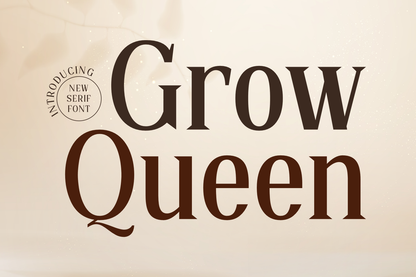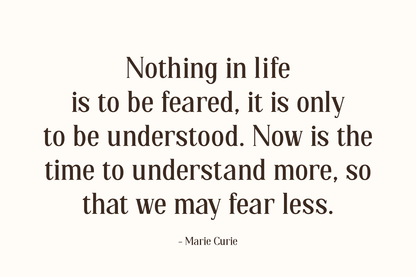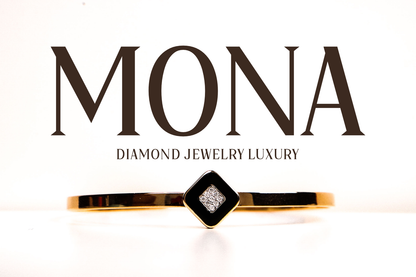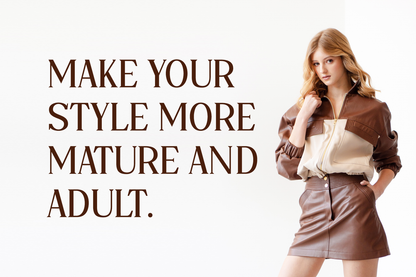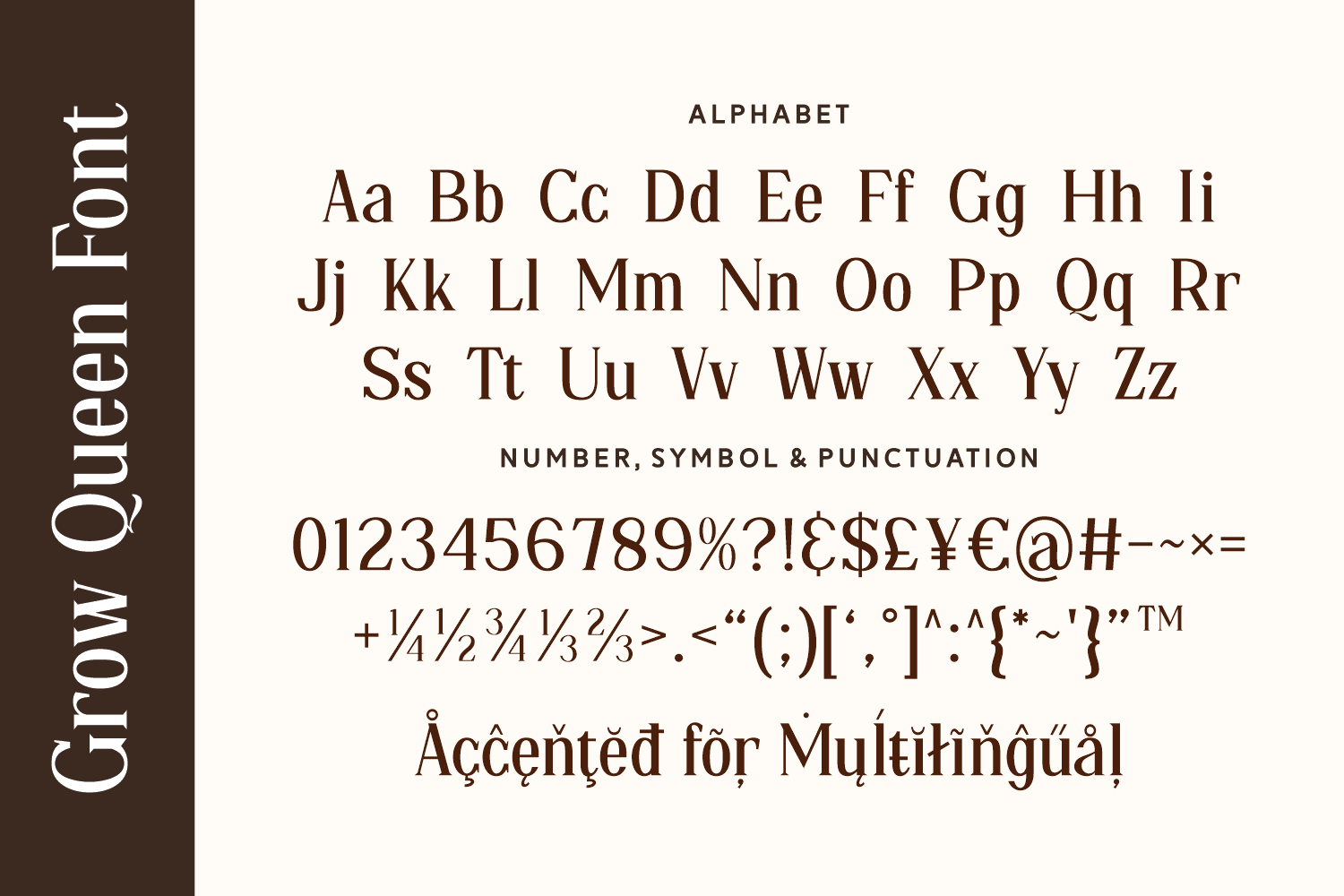
Grow Queen is a confident serif font that embodies feminine strength and organic beauty. Its bold presence and soft details make it perfect for skincare, wellness, or lifestyle brands seeking elegance with a grounded touch. The subtle curves feel empowering yet gentle.
Graceful growth meets royal presence.